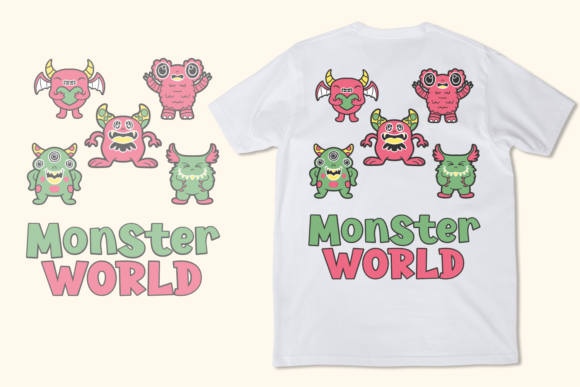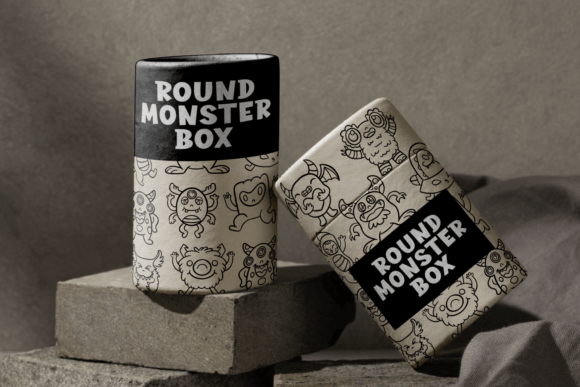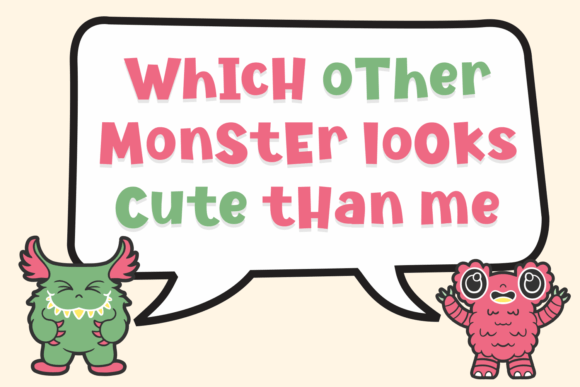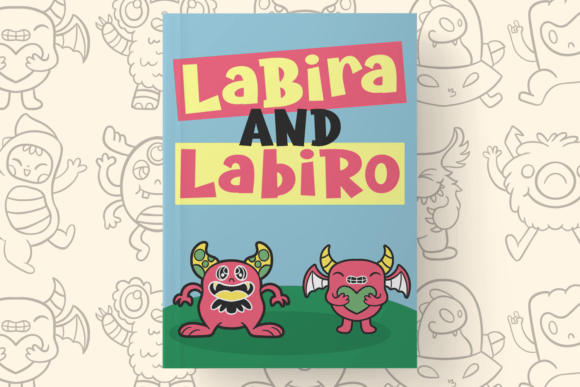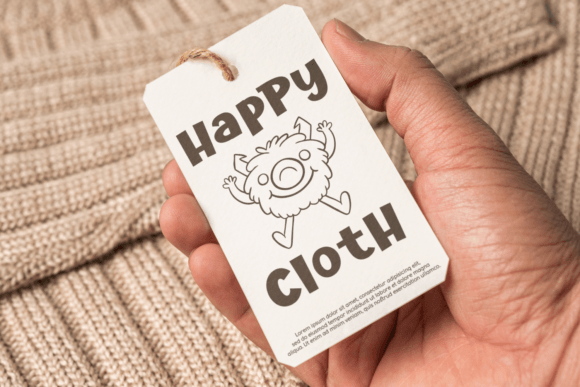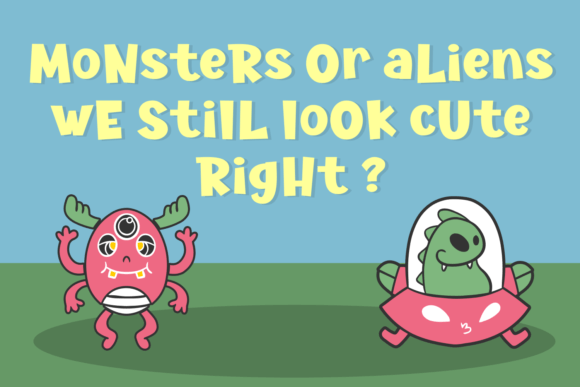
Introducing Happy Monstero Font: The Ultimate Display Font for Creative Projects
Are you tired of using the same old fonts for your design projects? Look no further than Happy Monstero Font, a cool, fun, and playful display font that’s sure to take your creations to the next level. With its unique and eye-catching design, Happy Monstero is the perfect addition to any designer’s library of fonts.
What Makes Happy Monstero Font So Special?
Happy Monstero Font is a versatile typeface that can be used for a wide range of design projects, from posters and branding projects to crafts, labels, and more. Its playful and fun design makes it ideal for projects that require a bit of personality and whimsy. Whether you’re a designer, crafter, or DIY enthusiast, Happy Monstero Font is sure to become a go-to font in your collection.
Key Features of Happy Monstero Font
- Playful Design: The font features a unique and playful design that’s sure to add a touch of fun and personality to any project.
- Versatile: Happy Monstero Font can be used for a wide range of design projects, from posters and branding projects to crafts, labels, and more.
How to Use Happy Monstero Font in Your Design Projects
Happy Monstero Font is easy to use in a variety of design projects. Here are a few ideas to get you started:
- Posters: Use Happy Monstero Font to create eye-catching posters for events, promotions, or advertising campaigns.
- Branding Projects: Add a touch of personality to your brand with Happy Monstero Font, perfect for logos, business cards, and more.
- Crafts: Use Happy Monstero Font to add a personal touch to your craft projects, such as scrapbooking, card making, and DIY gifts.
- Labels: Create custom labels for products, gifts, or storage containers with Happy Monstero Font.
Tips for Getting the Most Out of Happy Monstero Font
Here are a few tips for getting the most out of Happy Monstero Font:
- Experiment with Different Sizes: Happy Monstero Font looks great in a variety of sizes, from small and delicate to large and bold.
- Pair with Other Fonts: Try pairing Happy Monstero Font with other fonts to create a unique and interesting design.
- Use in Combination with Images: Happy Monstero Font looks great in combination with images, graphics, and illustrations.
In conclusion, Happy Monstero Font is a fantastic addition to any designer’s library of fonts. Its playful and fun design makes it perfect for a wide range of design projects, from posters and branding projects to crafts, labels, and more. With its PUA encoding and easy-to-use design, Happy Monstero Font is sure to become a go-to font for designers and crafters of all skill levels.